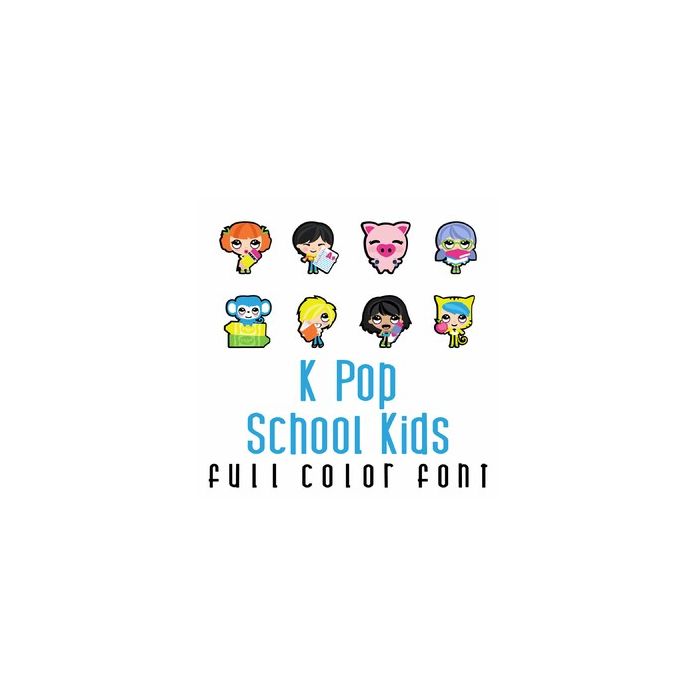
This adorable full color doodlebat font features k-pop inspired kids ready for school. Perfect for cards, crafts, gifts, decor, scrap book pages, planner stickers and more!